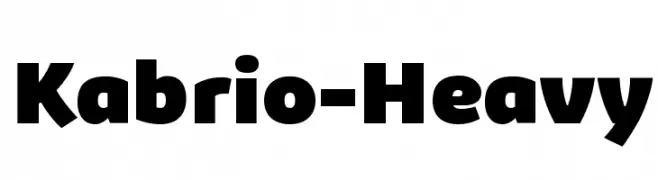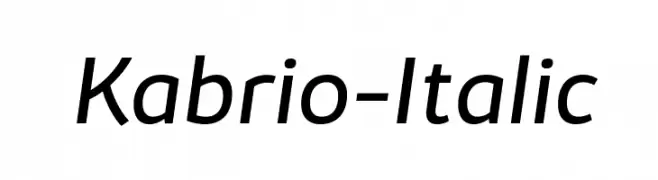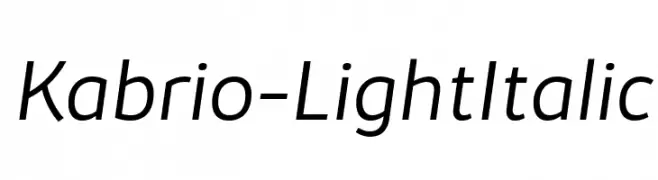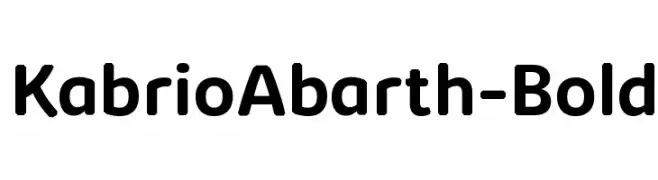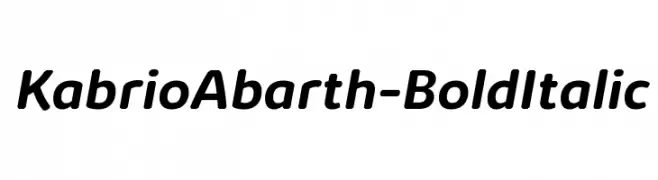
A bold, modern font with thick, uniform strokes and a strong visual presence.
A bold, italic font with a dynamic and modern style.
A modern, italicized sans-serif font with a sleek and professional appearance.
A modern, italic font with clean lines and excellent legibility.
A clean, modern sans-serif font with a uniform stroke width and geometric influence.
A modern, light, italic sans-serif font with medium contrast and normal spacing.
A bold, rounded sans-serif font with smooth curves and uniform strokes.
A bold, italicized font with smooth, rounded edges and a modern feel.
A modern sans-serif font with smooth curves and uniform stroke width.
A modern, italicized font with smooth curves and consistent strokes, offering a dynamic and professional look.